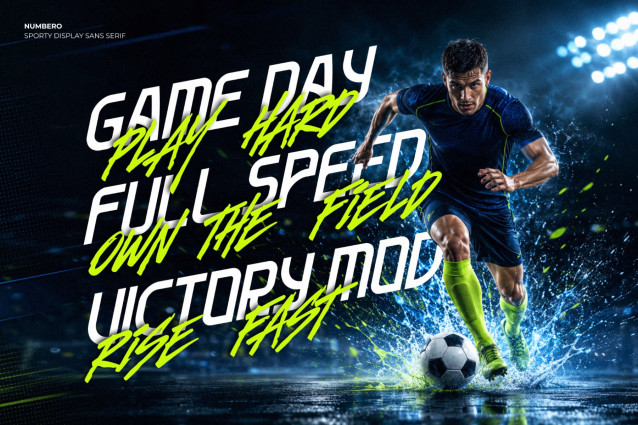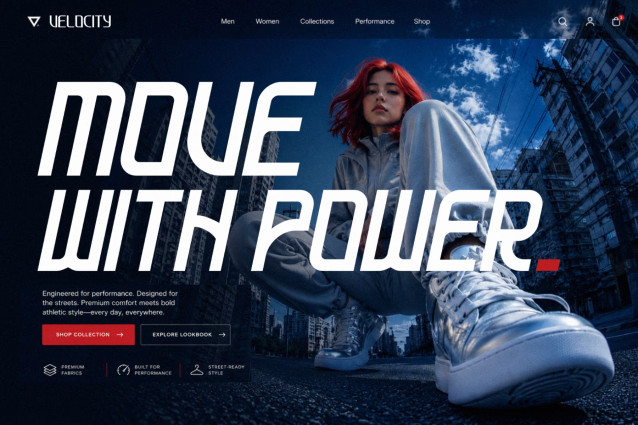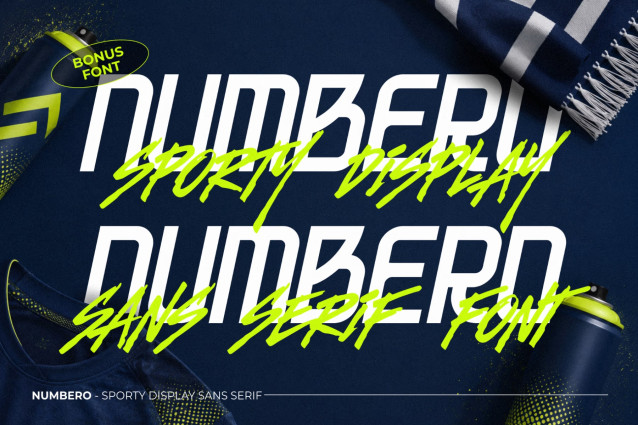
Numbero Sporty Sans Serif Font is an all-caps type family created for design projects that need an athletic, active, and confident typographic direction. With eight coordinated font styles, it gives designers a practical range of options for building strong headlines, supporting text, layered compositions, and consistent branding systems.
The family includes Thin, Regular, Bold, and Outline styles, with an Italic version for each weight. This selection makes Numbero useful when one project needs more than a single headline treatment. You can establish hierarchy, add movement with italic typography, create contrast through different weights, or introduce an outlined treatment without leaving the same font family.
Numbero is suitable for graphic designers, apparel creators, sports brands, creative studios, content creators, and digital product sellers who need typography with a clear sporting identity. It can support both focused commercial layouts and expressive promotional artwork while keeping the overall visual language connected.